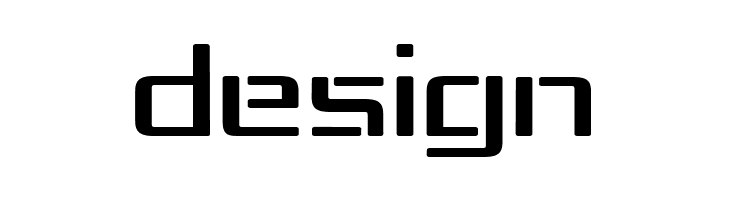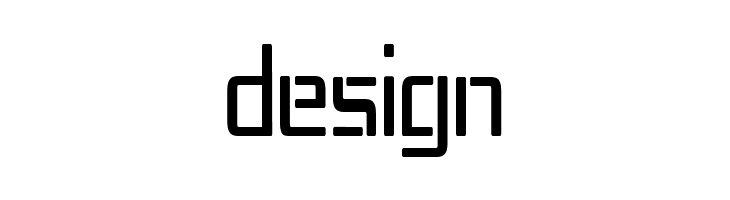
A modern, geometric font with bold, squared characters and rounded edges.
A modern, geometric, and condensed font with low contrast and a sleek design.
A modern, italic font with geometric influences and consistent stroke width.
A modern, italicized font with a sleek, futuristic design.
A modern, italicized font with a futuristic and dynamic style.
A sleek, modern, condensed italic font with a futuristic design.
A sleek, modern, condensed italic font with a futuristic and geometric design.
A futuristic, italicized font with expanded, angular letterforms.
Popular choices include Republika IV Exp, Republika IV Cnd, Republika Italic, Republika Exp Italic and Republikaps Exp Italic — fonts known for their balance between modern and timeless. They look great on web pages, social content, and packaging, bringing a clean yet expressive feel.